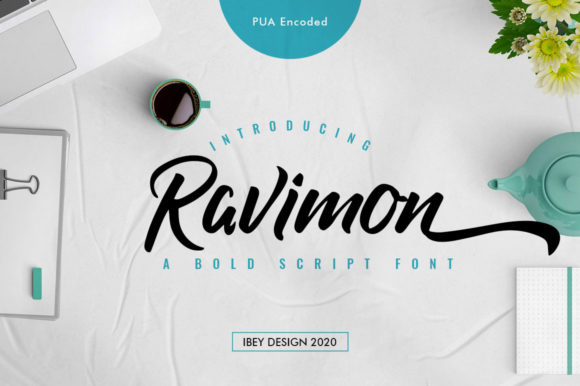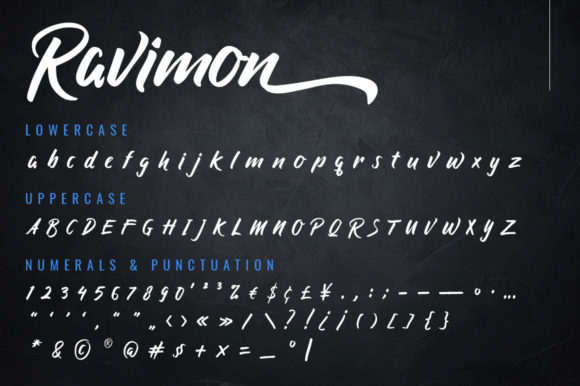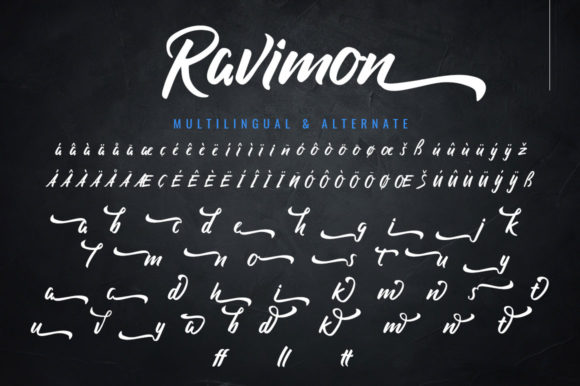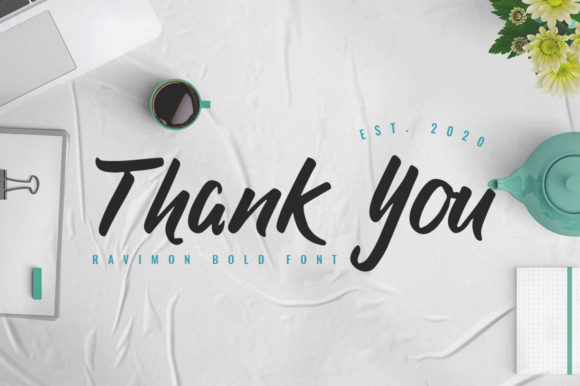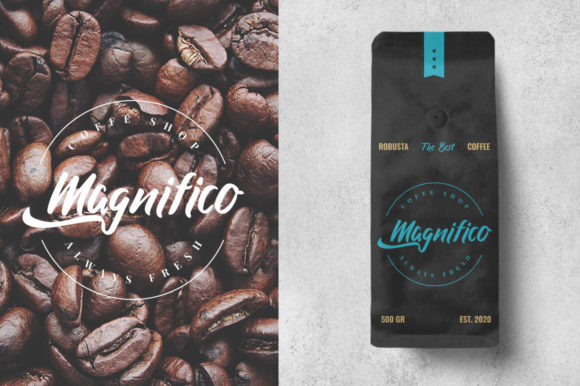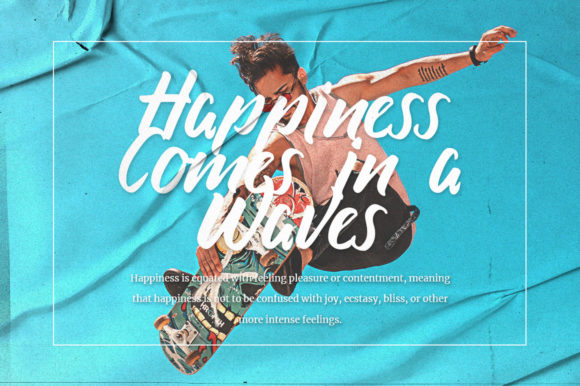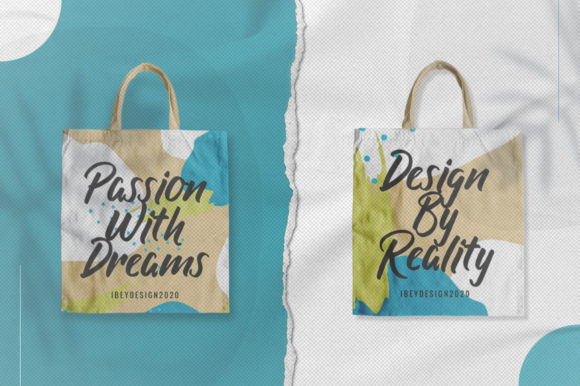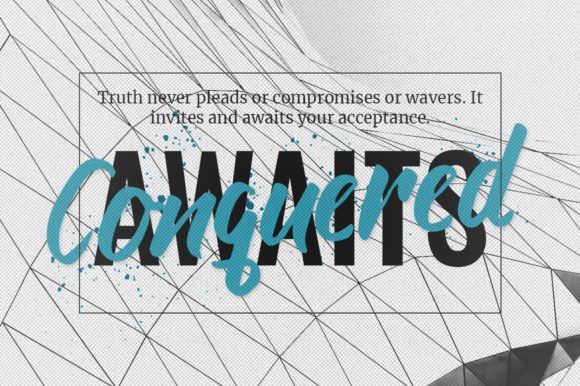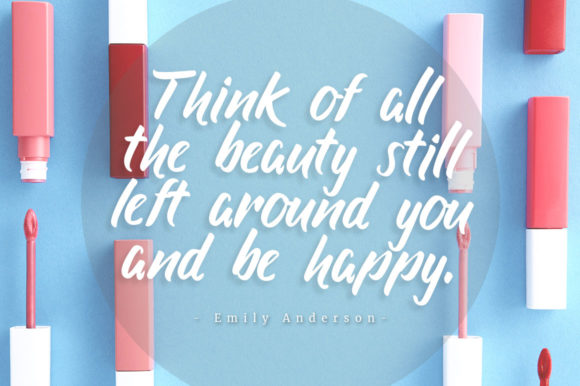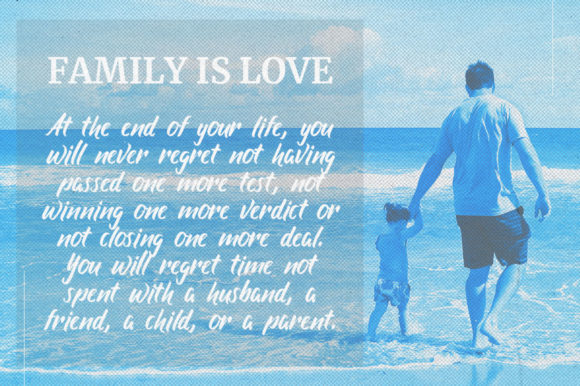
Ravimon Font
About Ravimon Font
Ravimon is a luxury handbrush font. Its unique look is perfect for logos, photography, advertising, branding and much more!